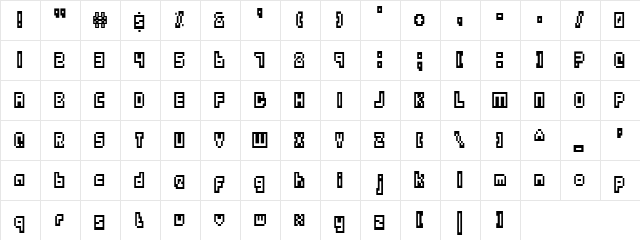
Outlands Truetype Regular
Design Context for Outlands Truetype Typeface
Outlands Truetype is a composed and adaptable typeface that performs quietly and consistently across a wide range of design contexts.